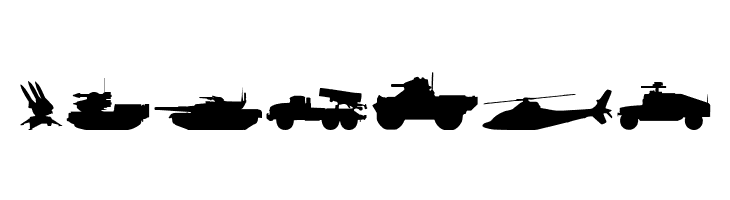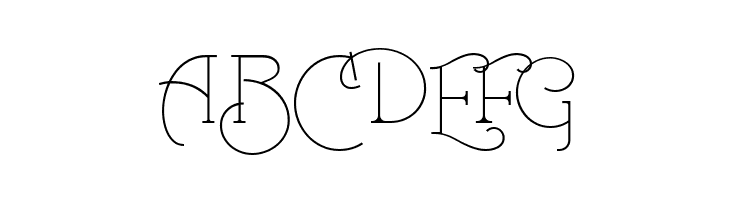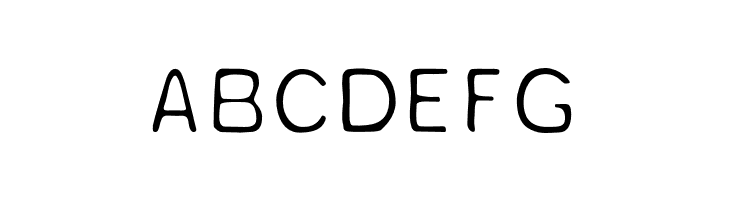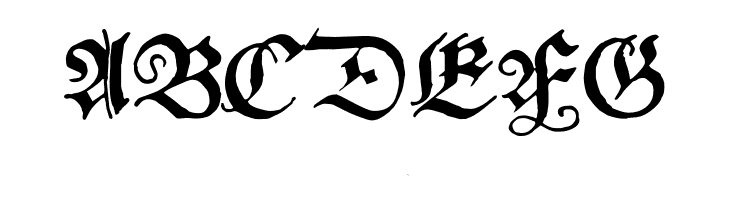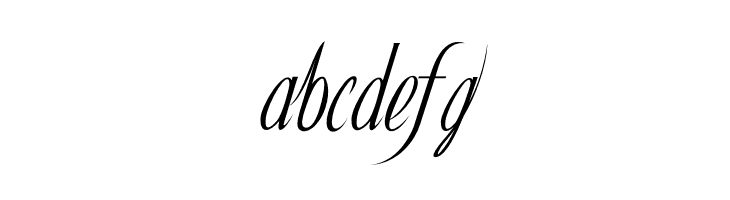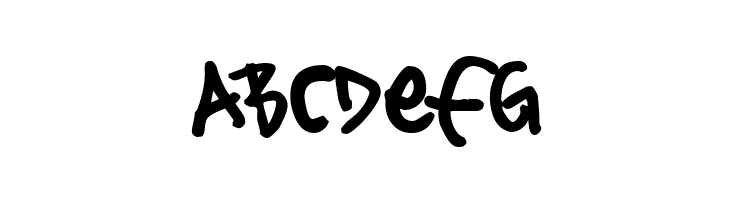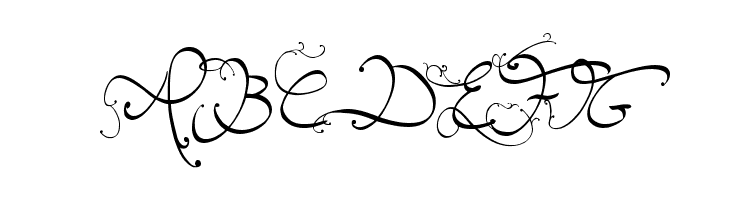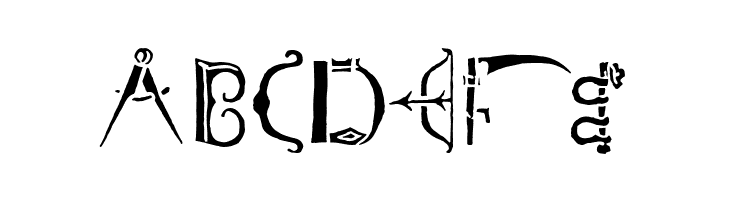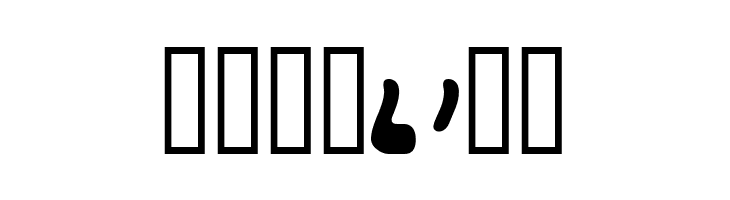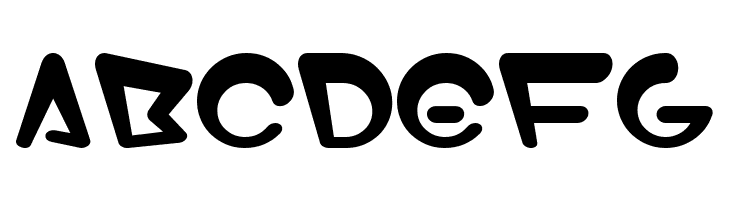
A distressed, grunge-style font with rough, uneven edges and a bold presence.
Military-themed dingbat font with vehicle and equipment silhouettes.
An elegant, decorative font with intricate swirls and vintage charm.
A bold, playful font with decorative serifs and unique swashes.
An ornate and historical font with intricate, dramatic letterforms typical of the Schwabacher style.
A playful and whimsical font combining script and decorative elements.
An ornate and decorative script font with intricate swirls and flourishes.
A decorative font inspired by everyday tools, featuring intricate and playful designs.
A playful, bubbly font with bold, rounded characters and a cartoonish style.
A bold, decorative font with intricate swirls and flourishes.
An ornate and decorative blackletter font with elaborate flourishes.
A whimsical, decorative script font with intricate swirls and loops.
A bold, geometric font with sharp angles and modern flair.
A distressed, grunge-style font with characters in circular backgrounds, resembling worn-out ink stamps.
A bold, geometric font with sharp, angular elements and a modern aesthetic.